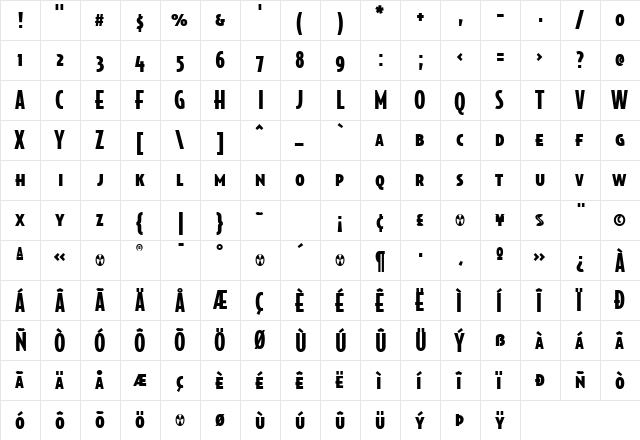
BodegaSansBlackSmallcaps Regular
Design Context for BodegaSansBlackSmallcaps Typeface
BodegaSansBlackSmallcaps offers clean, dependable letterforms without strong stylistic allegiance, making it a practical choice for designers who need flexibility.